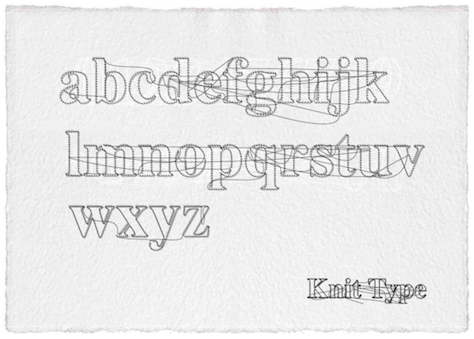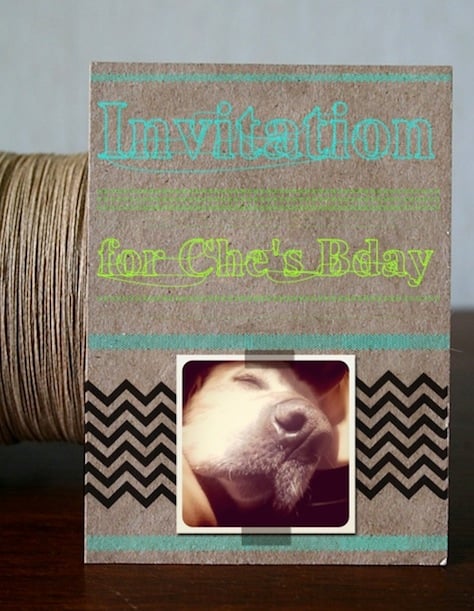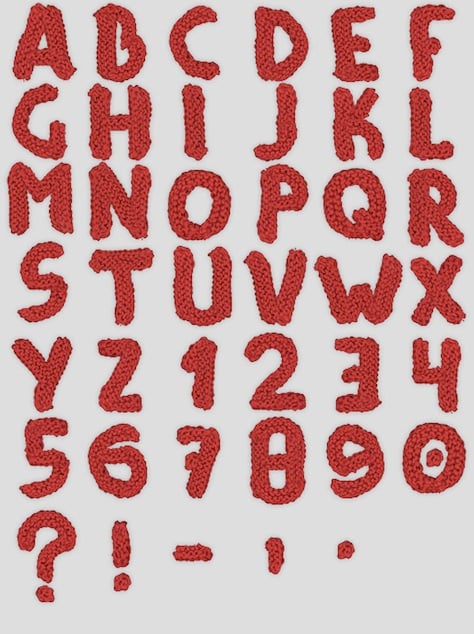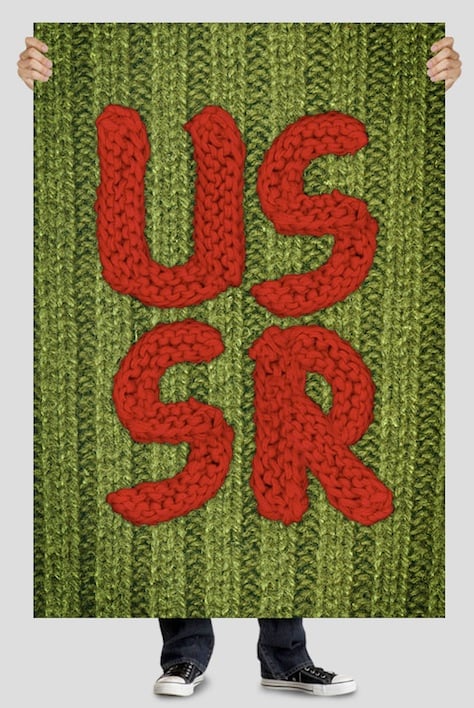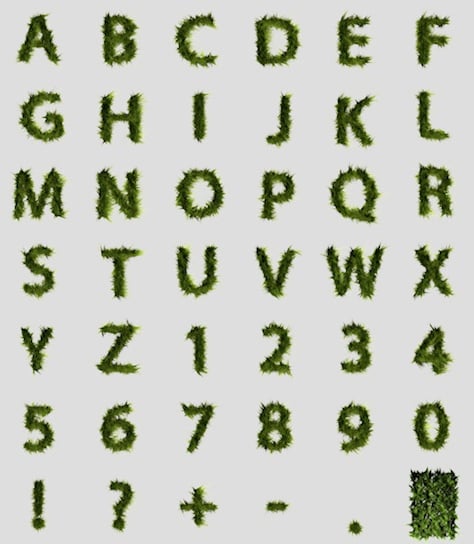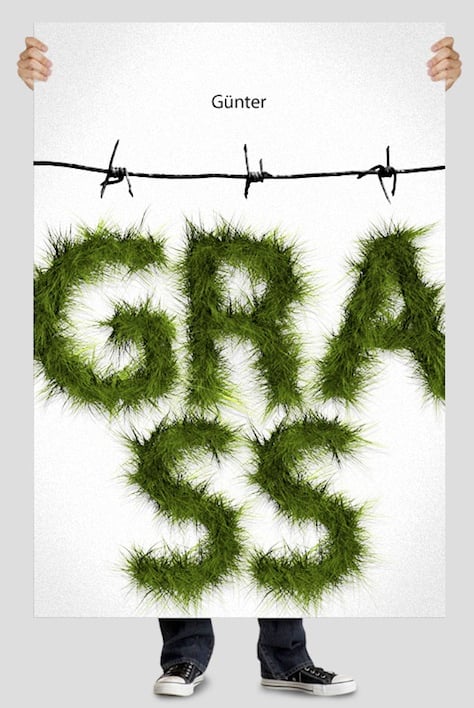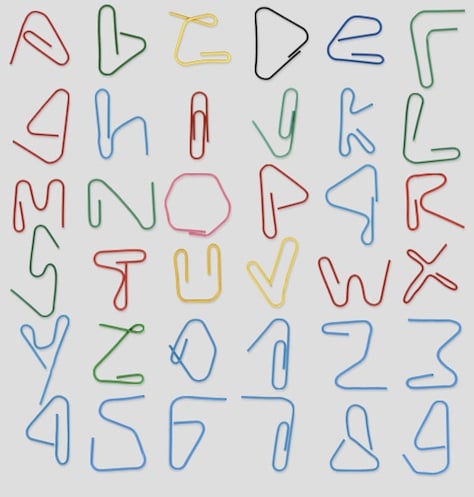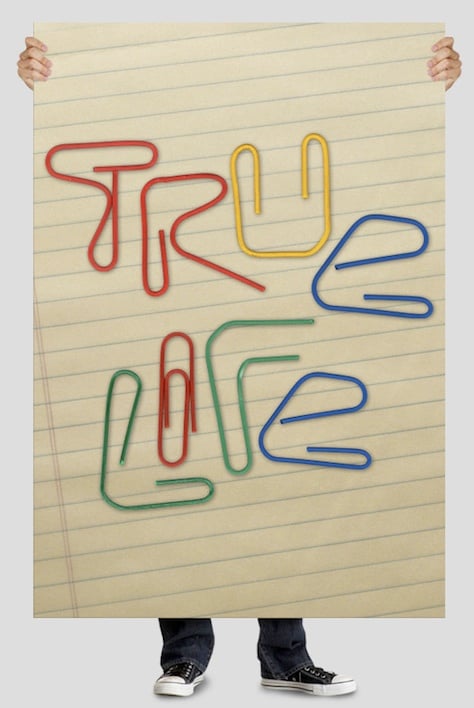
Fonts on Friday: Crafty Handmade Fonts
What better time to round up new typefaces than on Friday. Not only is "Fonts on Friday" alliterative, but showcasing new fonts also seems like a good way to end the week.
While I love classic and tasteful text typefaces with famous names attached to them like Garamond or Caslon, I also enjoy seeing display fonts that push the boundaries of taste, or at least usefulness.
A couple of weeks ago I showed my personal collection of fonts made from food. (Tasteful? No. Tasty? Yes!)
While I have never actually set any type with these characters — and they'd have to be placed as graphics form &$8212; I chuckle at the thoughts of using them in a context other than food or cooking.
That's the fun of display type, in my opinion; to be able to turn the tables on what's expected.
So this week I found some fonts that are clearly on the periphery of tasteful or classic.
This first one is kind of sweet, actually, and it seems appropriate for Mother's Day. In truth I may be drawn to it because I'm a knitter and sewer myself, and so is my mom.
The font is called Knit Typeface and it's by a New York-based interactive design Filiz Sahin. These are EPS letters, not a font, so you have to place letters individually.
I really like the detail in the letterforms, and also the EPS "thread" connecting them. You can manipulate the lines in Illustrator to connect any characters you want. If you've ever seen the reverse side of machine embroidery, you know that threads carry over from element to element. (If you like embroidery, don't forget to check out these amazing Penguin book covers.)
This next collection of type is really imaginative. It's by HMF (HandMadeFont), operated by Estonia-based designers Vladimir Loginov and Maksim Loginov. These is nothing these guys can't make into a typeface — red caviar, hand-stitched leather, bread crusts. It may sound a little cheesy (and yes, there is a cheese font) but the cumulative effect is just really fun.
Here are a few I was drawn to.